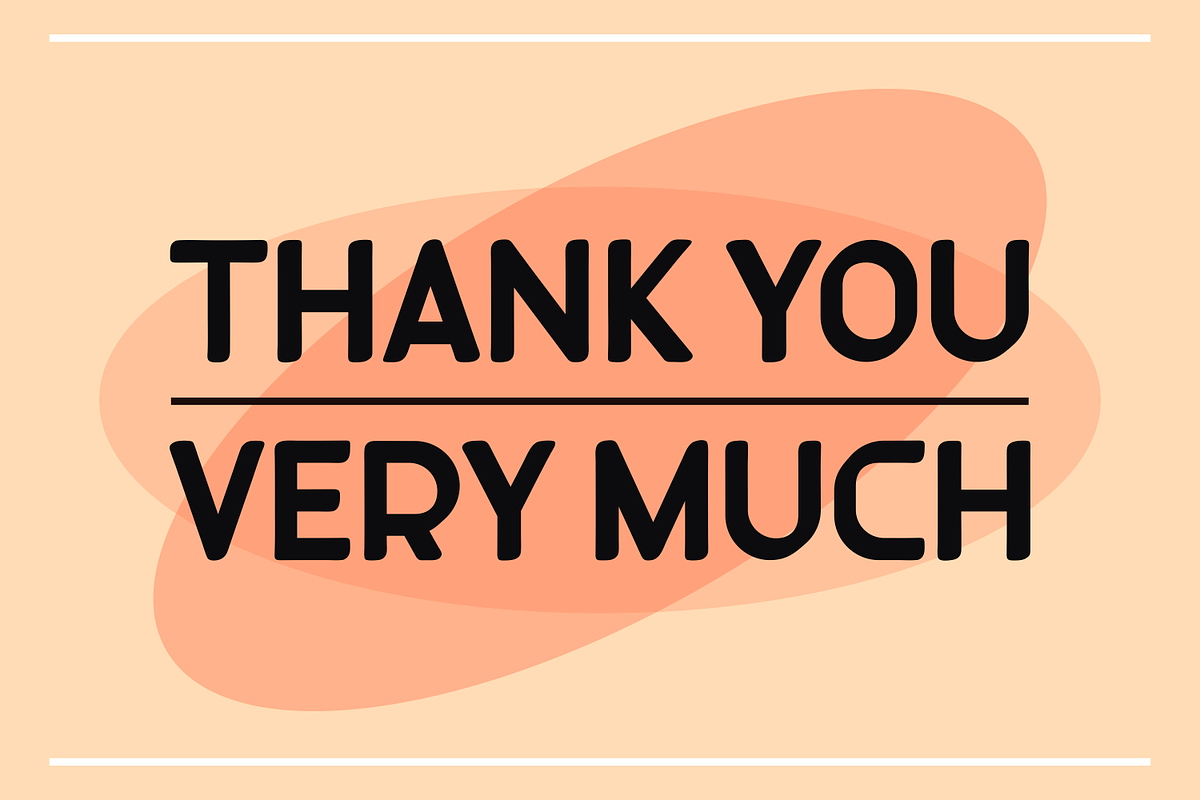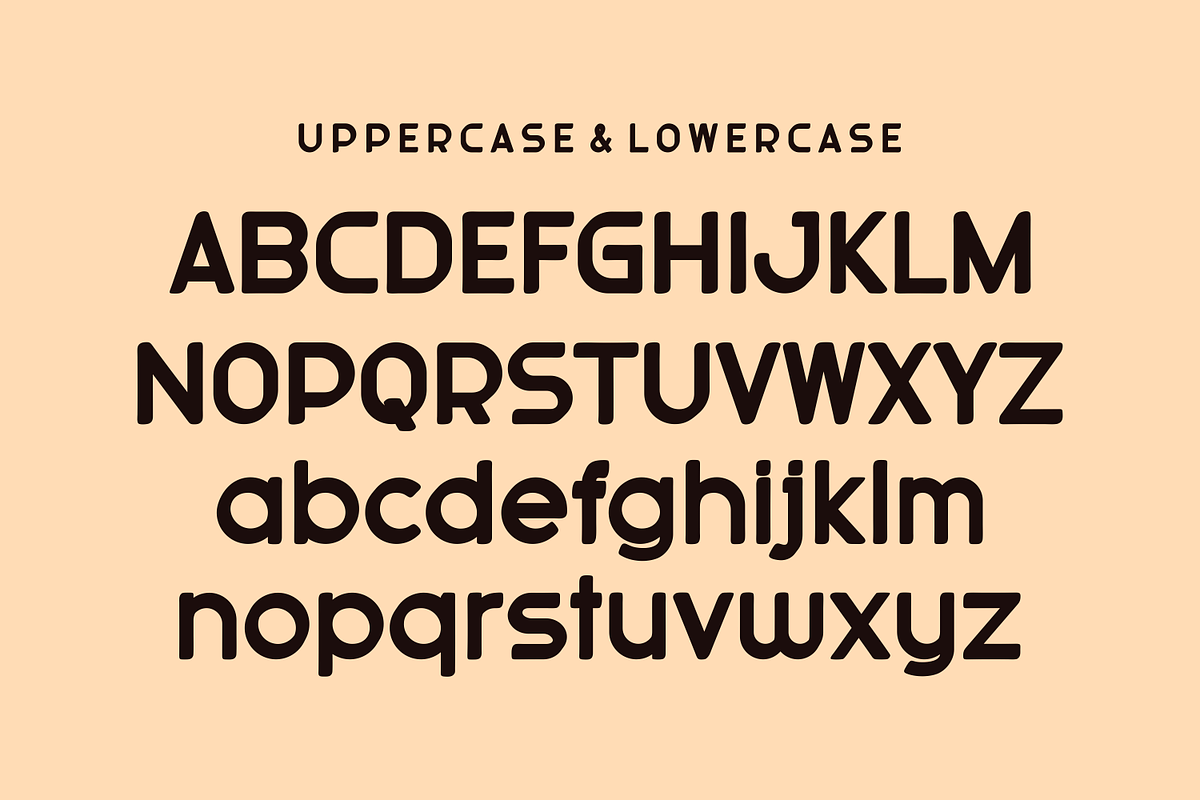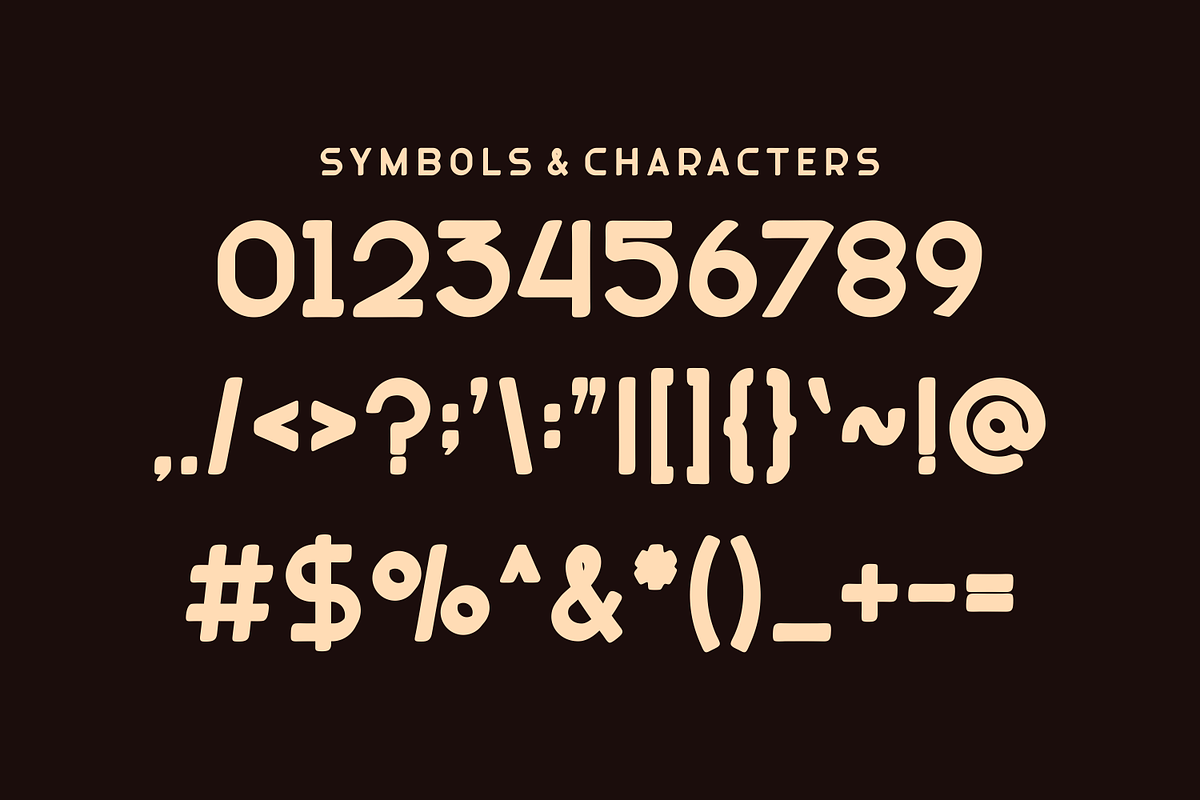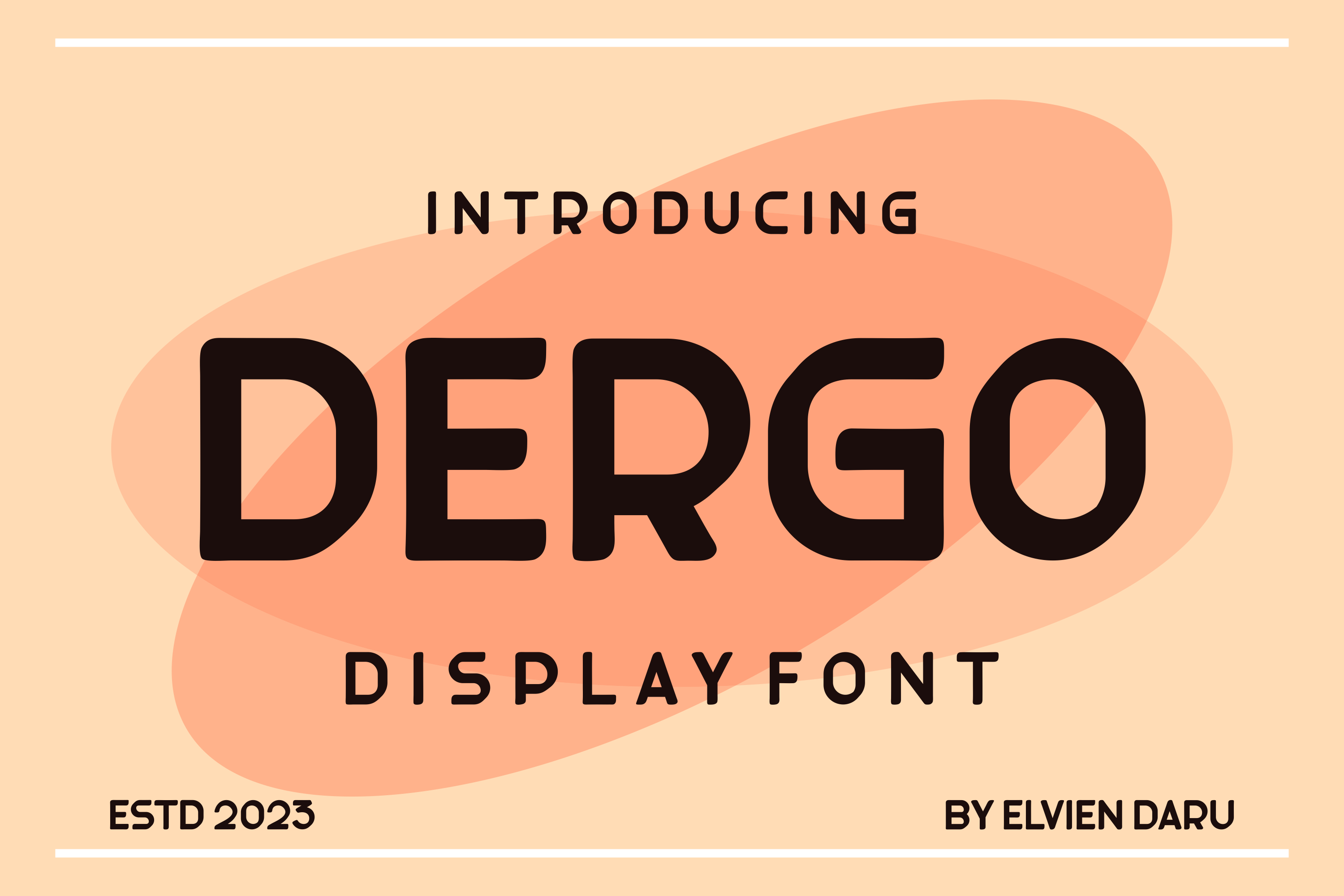
Dergo - Modern Sans Serif Font
Dergo - Modern Sans Serif Font Perfectly suited on print/screen. it’s perfect for Branding, name card, poster, logo, magazine, cover, banner, t-shirt and headers, or even large-scale artwork.